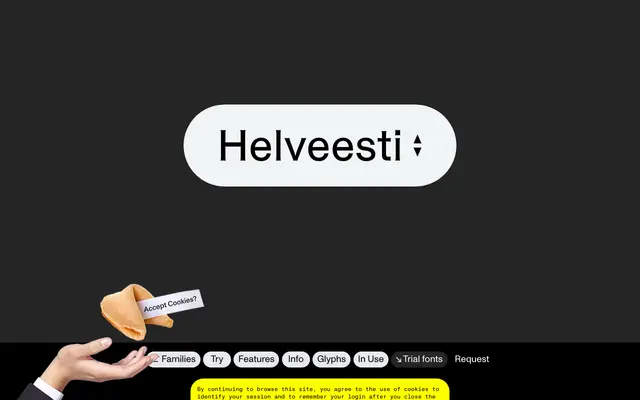
ABC Helveesti
Dinamo Typefaces · Dinamo (Fabian Harb, Robert Janes, Johannes Breyer, Fabiola Mejia) with Andree Paat · 2018
A digitisation of a Soviet-era Helvetica clone with phototype light traps, drawn from a 1970s Estonian children's book.
A neo-grotesque revival by Dinamo with Andree Paat, digitised from a Soviet-era Helvetica clone Fabian Harb found in a vintage Estonian children's book during a 2014 type class in Tallinn. The original light traps, spiked corners stemming outwards like mutated tails, were designed to compensate for blurring during phototypesetting, and the Spikes subfamily preserves them. Five weights from Regular to Black ship with matching italics across both Helveesti and Helveesti Spikes. Use it where you want Helvetica's voice with a folkloric, slightly mutant accent.
Dinamo describes Helveesti as a digitisation of a Soviet-era Helvetica clone found in a 1970s Estonian children's book, with light traps (spiked corners stemming outwards) originally designed to compensate for blurring during the phototypesetting era.